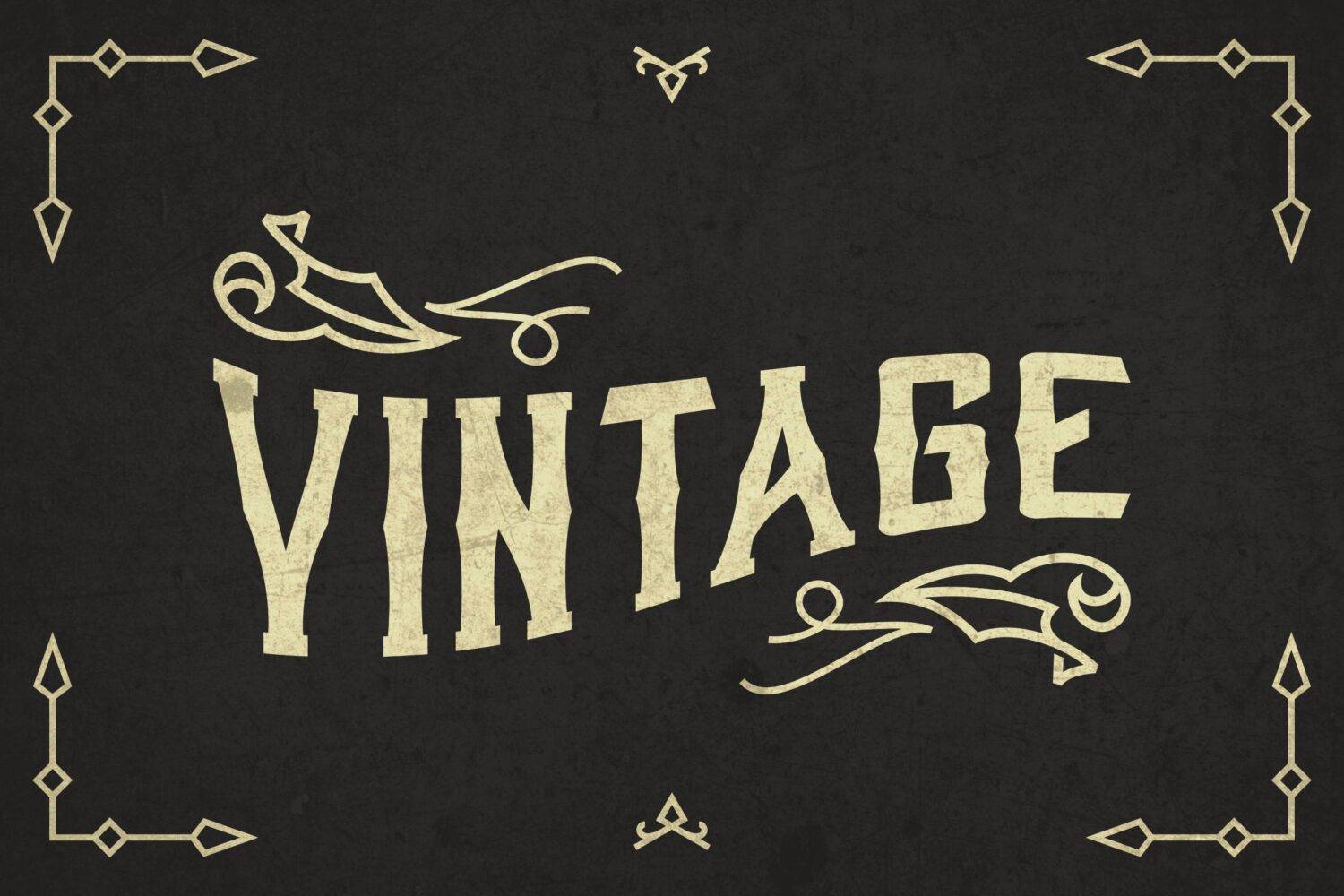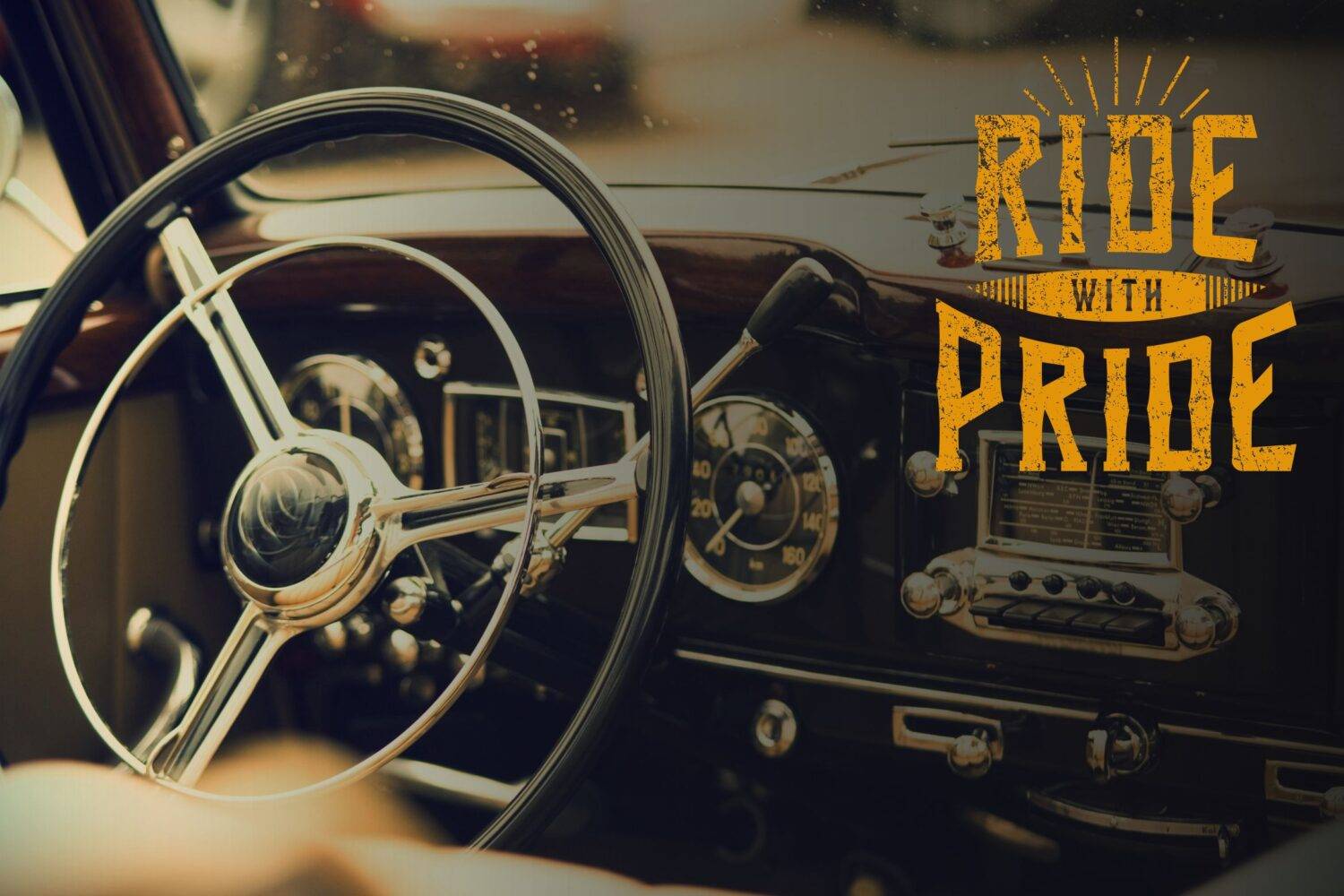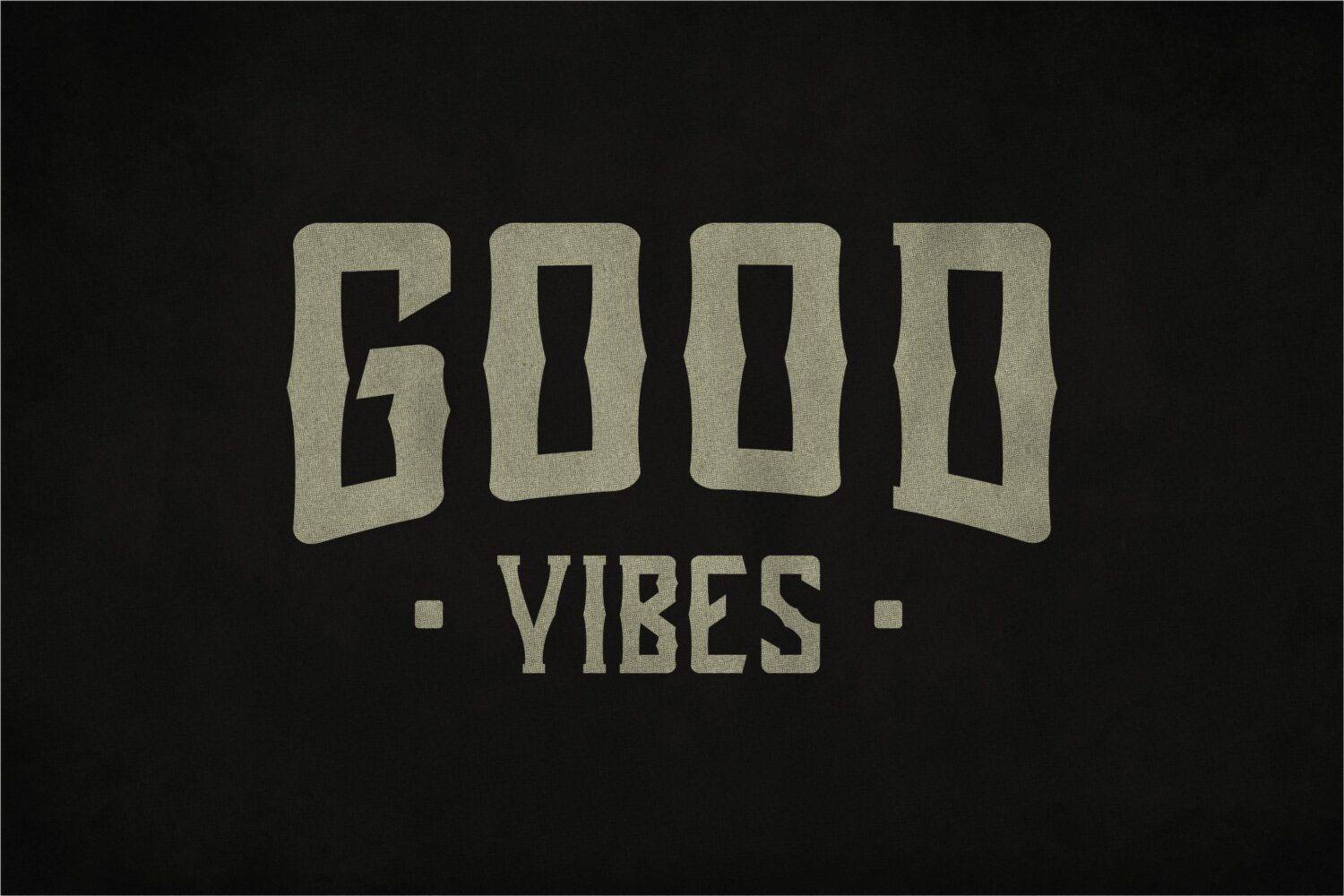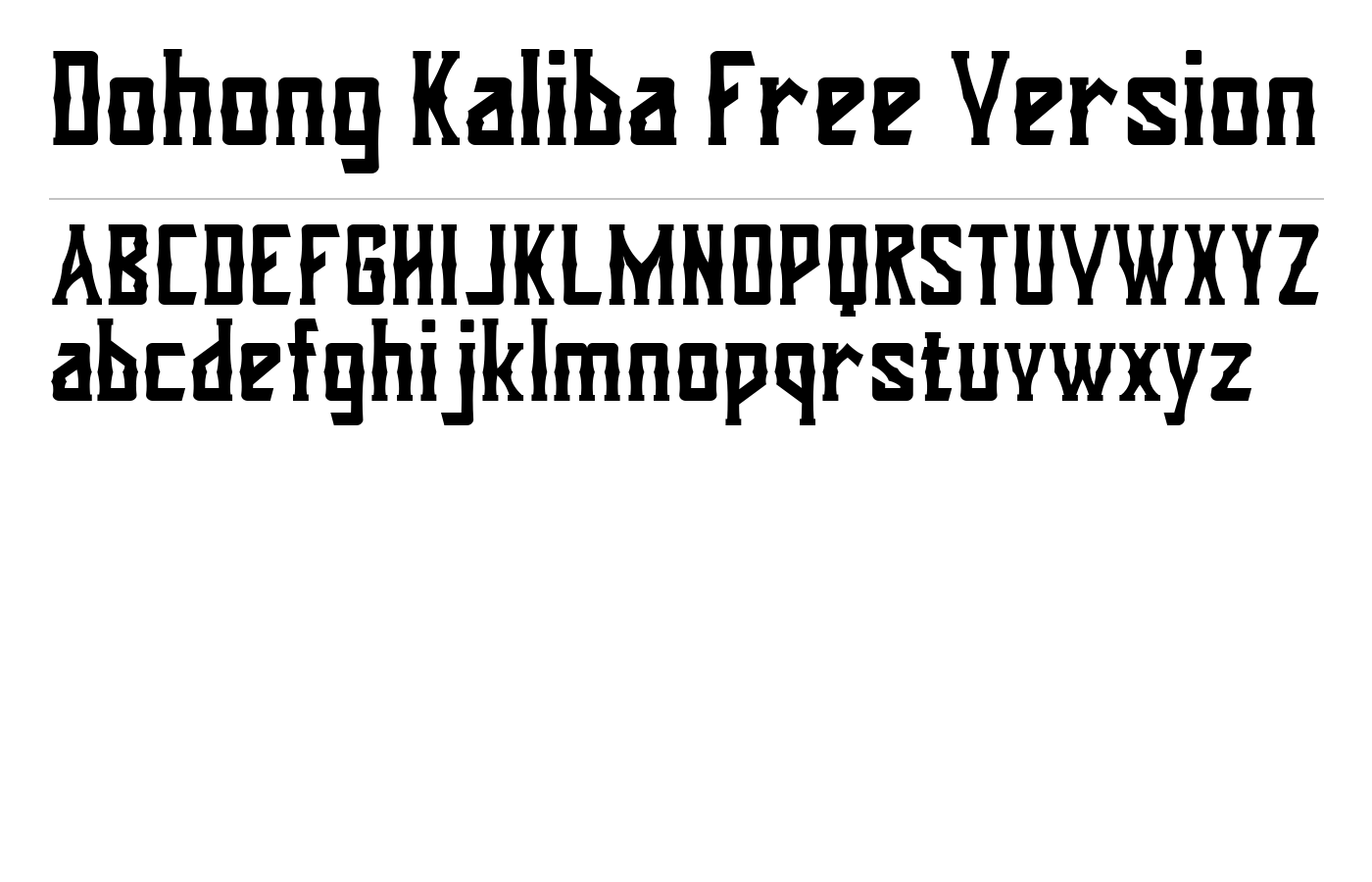
Dohong Kaliba is a bold, condensed sans serif font with a strong, slightly irregular geometric style that lends a handcrafted and distinctive character. Its high contrast between thick and thin strokes, coupled with sharp angles and unique letter shapes, gives it an edgy, vintage-inspired feel perfect for attention-grabbing headlines, posters, and branding that seeks a rugged, artistic vibe. This font works best in display settings where personality and impact are key, making it ideal for creative projects and bold visual statements.
Dohong Kaliba Font
About Dohong Kaliba Font